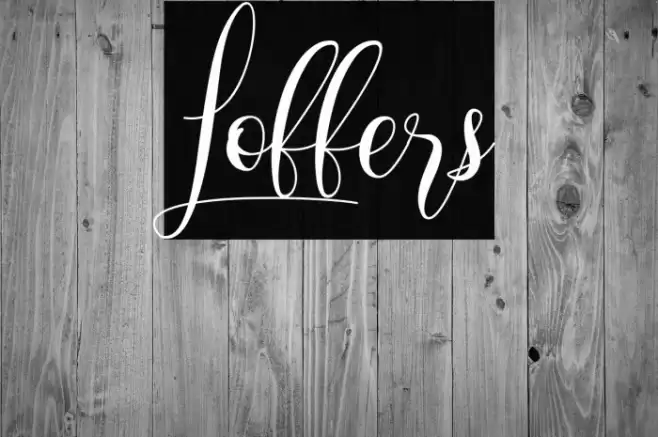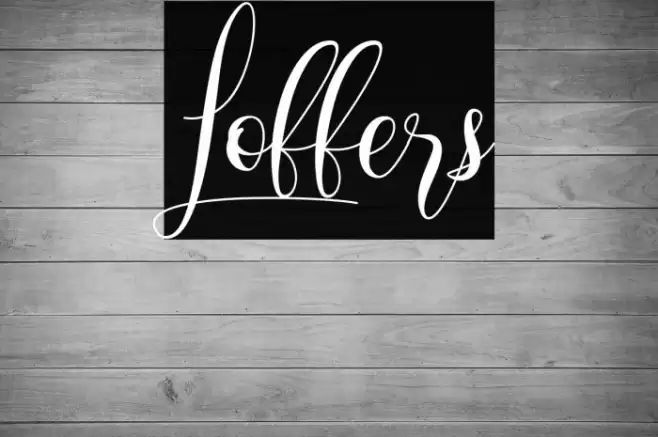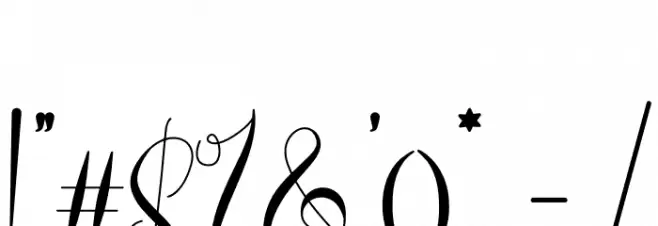
Loffers Font
Loffers Description
This font features an elegant and flowing script style, characterized by its graceful, interconnected letterforms. The uppercase letters are tall and slender, with sweeping curves and loops that give a sense of fluidity and motion. The lowercase letters maintain this fluidity, with a slightly more compact form that complements the uppercase. The font includes a variety of special characters and numerals, each designed with the same attention to detail and style. The overall appearance is sophisticated and artistic, making it suitable for creative and decorative applications.
An elegant, flowing script font with interconnected letterforms and artistic flair from Regular fonts.
- Proposed Projects: Ideal for wedding invitations, greeting cards, branding, and artistic projects requiring a touch of elegance.
- Use Case: Logos, Invitations, Decorative text